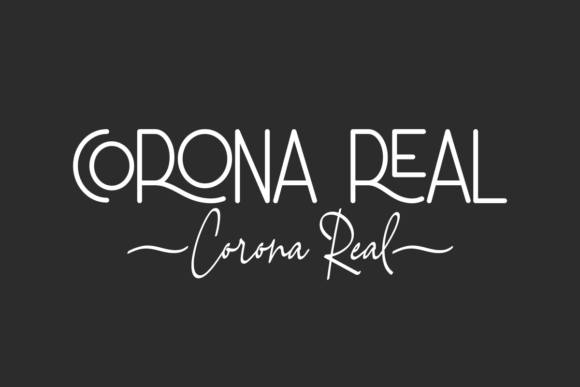
Dive into the world of Corona Real, a script font family that radiates elegance and warmth, ready to infuse your designs with a touch of sophisticated charm. This impeccable collection, crafted with meticulous care by vintype, features two perfectly harmonious fonts that dance together in perfect harmony.
Corona Real is the epitome of style and versatility, effortlessly adapting to your creative vision. Whether you're crafting chic invitations, captivating social media posts, or designing eye-catching logos, this font family will elevate your projects to new heights. Its graceful lines and delicate swashes bring a touch of timeless beauty to every word, adding an irresistible charm that captivates hearts and commands attention.
With Corona Real, you'll discover endless possibilities to express your creativity. Create dazzling headlines that dance across the page, leaving a lasting impression on your audience. Design stunning posters that ignite the imagination and transport viewers to a world of enchantment. Craft elegant branding materials that radiate professionalism and sophistication, leaving a lasting impression that sets you apart from the competition.
The OpenType features of Corona Real unleash a wealth of typographic possibilities. Experiment with ligatures and swashes to add a layer of intricate detail to your designs. Explore the power of alternate characters to infuse your text with a unique personality. With Corona Real, you have the tools to transform ordinary words into captivating works of art.